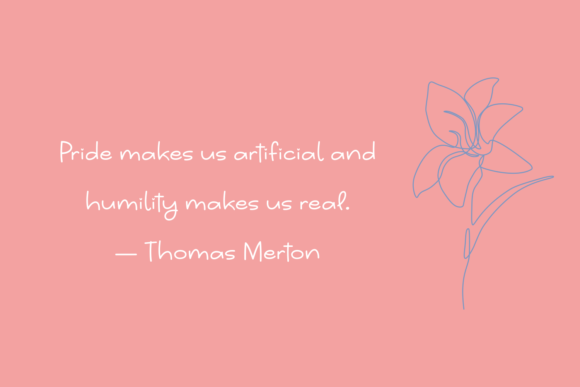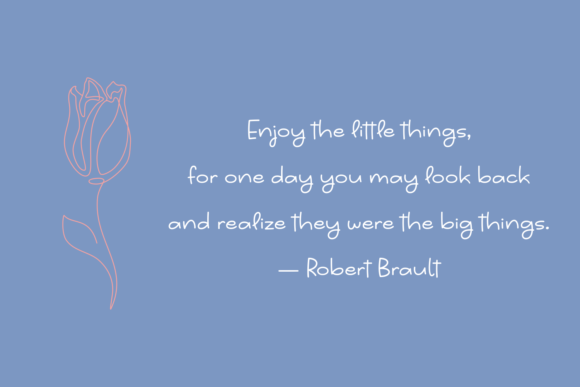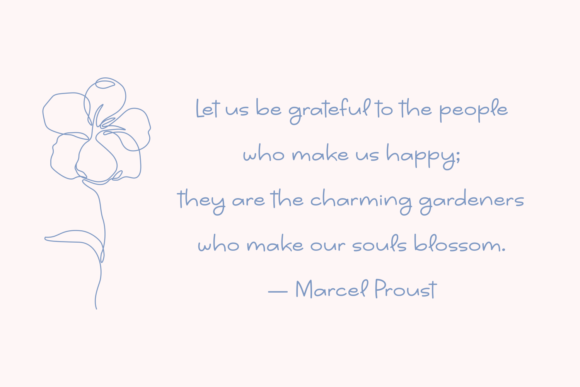
Humble & Grateful Font
About Humble & Grateful Font
Humble & Grateful is a cute and delightful handwritten font. Warm, romantic and jolly, this font will turn each of your project ideas into real works of art. Have fun with this beautiful font and explore its endless variations.